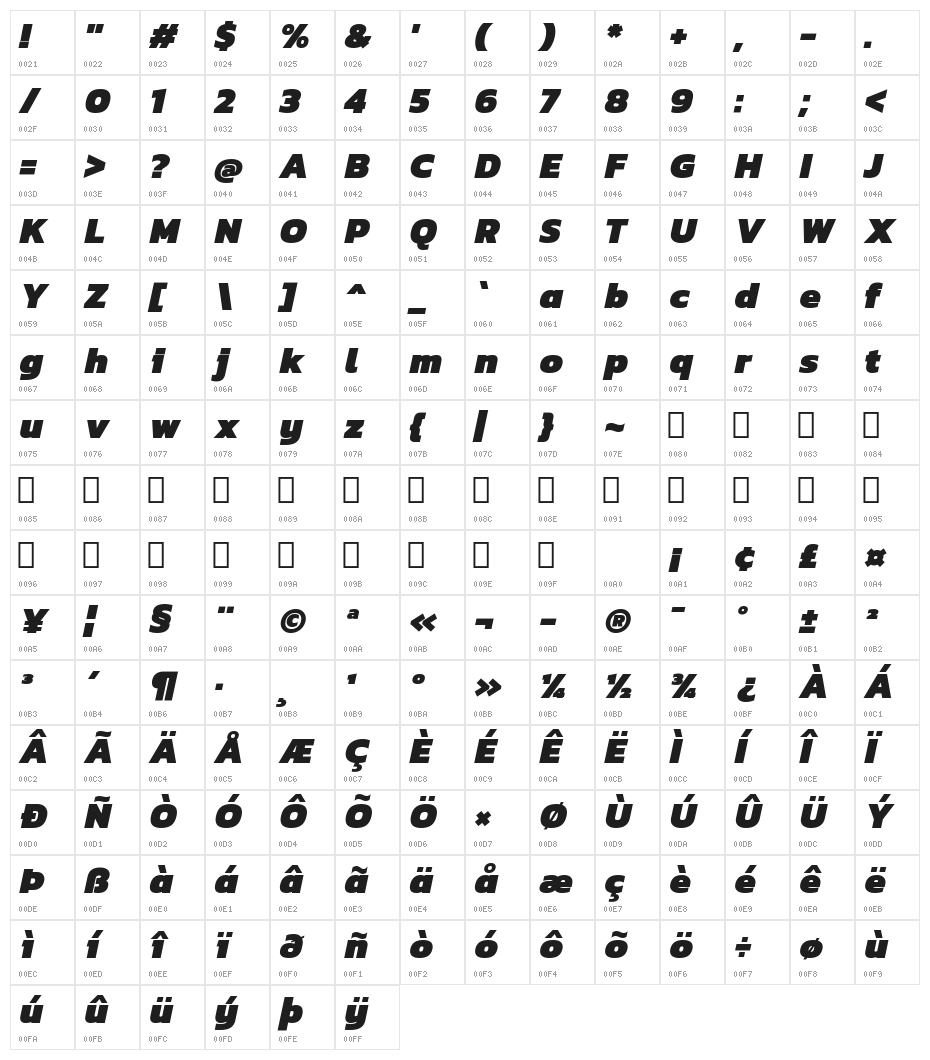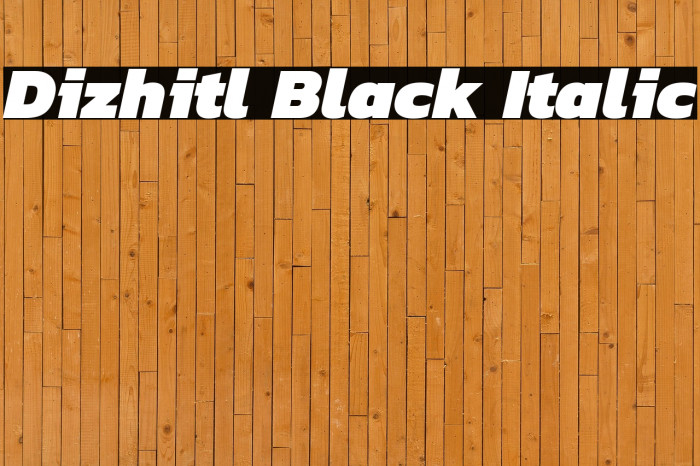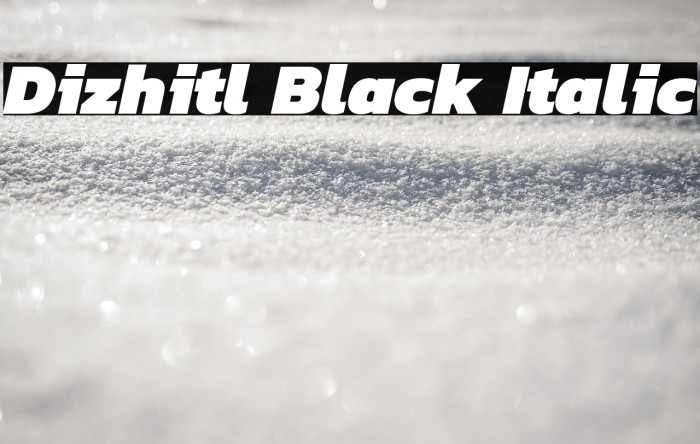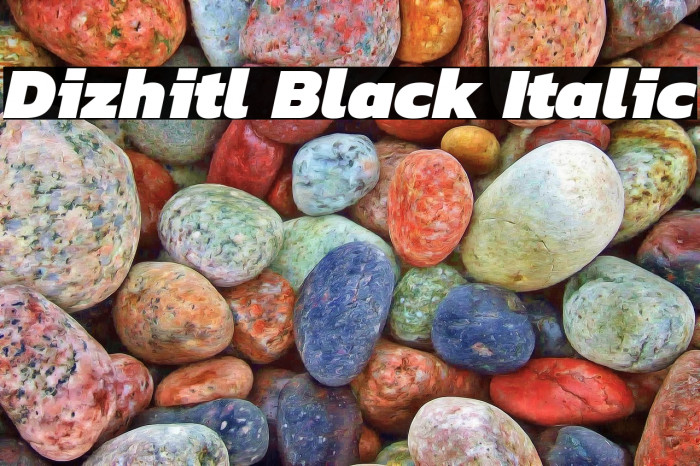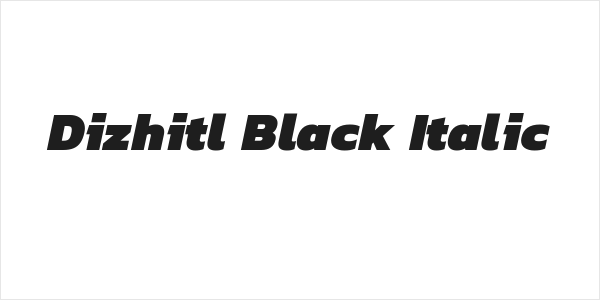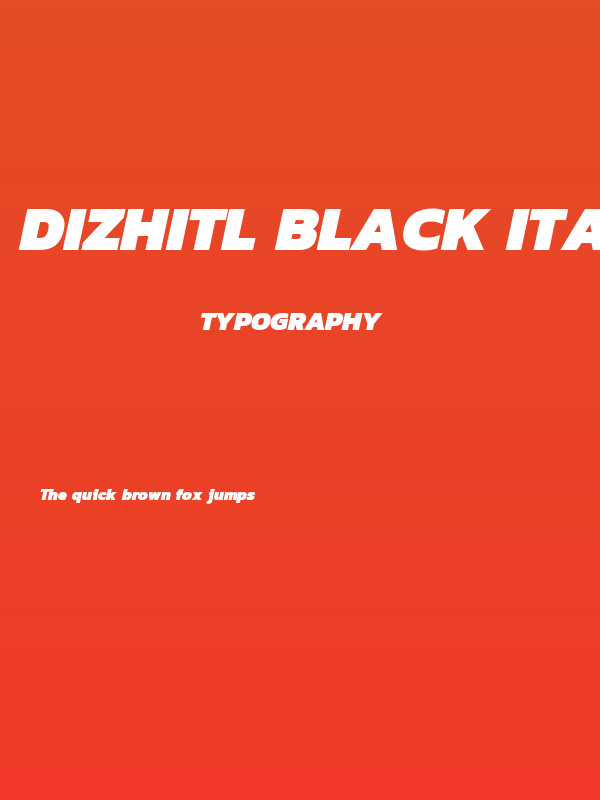
Dizhitl Black Italic Font
Dizhitl Black Italic Description
This font exhibits a bold and dynamic style, characterized by its thick, slanted letterforms that convey a sense of movement and energy. The uppercase and lowercase letters maintain a consistent weight, contributing to a cohesive and impactful appearance. The numerals and special characters are designed with the same boldness, ensuring uniformity across all glyphs. The italicized angle adds a modern twist, making it suitable for attention-grabbing headlines and branding materials. Its strong presence and clear readability make it versatile for various design applications.
| Proposed Projects | Ideal for branding, advertising, headlines, and poster designs where a strong visual impact is needed. |